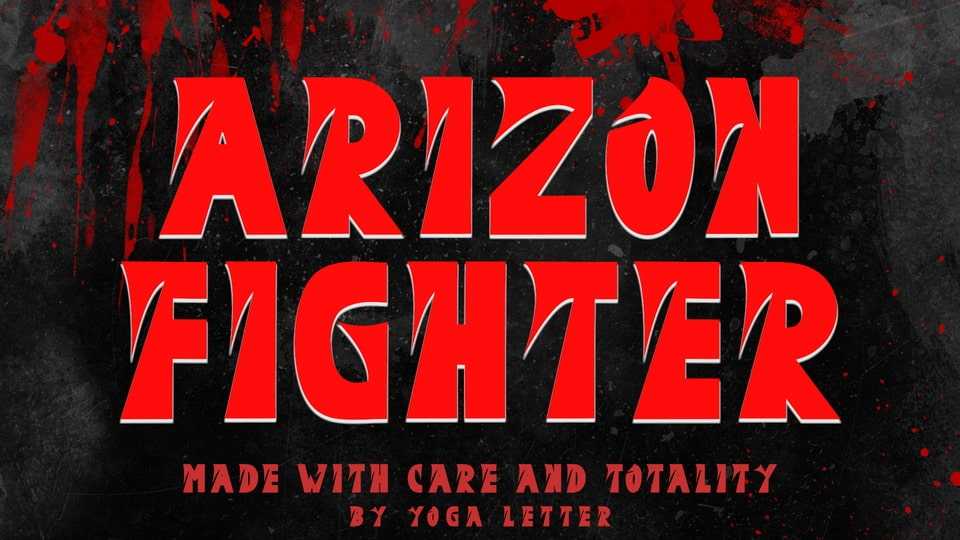
Download Arizon Fighter font, an elegant and professional blackletter typeface. It is very suitable for banners, posters, films, Halloween, summer, spring, Mother’s Day, business branding, stickers, tattoos, and others.